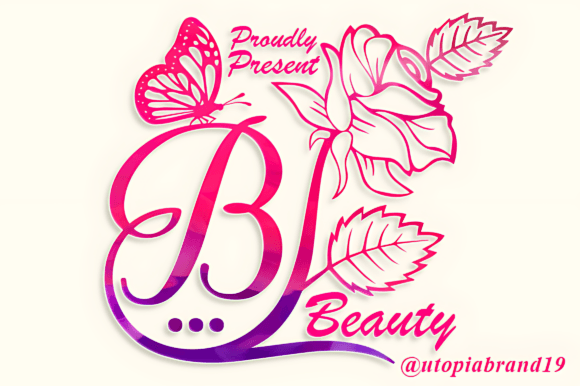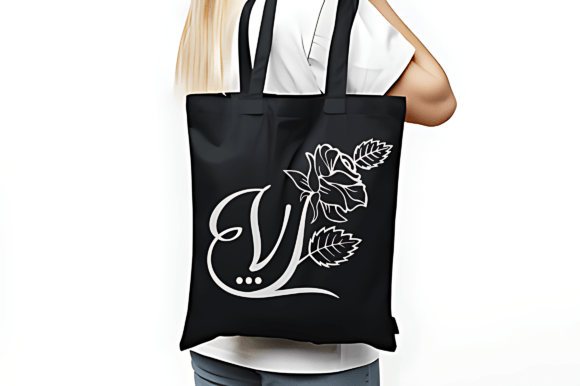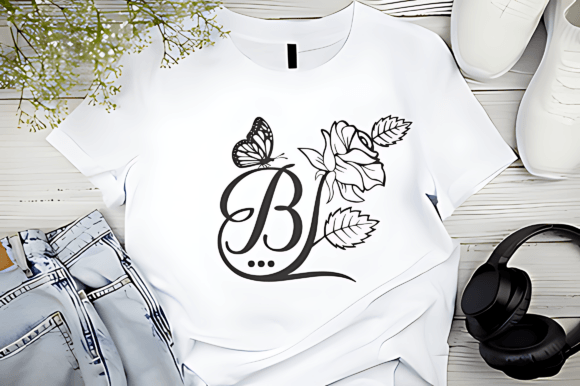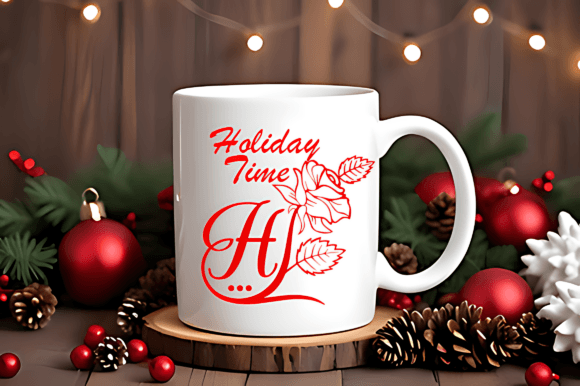
Beauty Flower Monogram Font
About the Beauty Flower Monogram Font
Unleash your creativity with Beauty Flower Monogram Font, a versatile font perfect for a wide range of applications. Beauty Flower Monogram is an elegant decorative font, featuring lovely ornaments. Fall in love with its authentic feel and use it to create gorgeous wedding invitations, beautiful stationary art, eye-catching social media posts, and cute greeting cards.
Beauty Flower Monogram Font Usage Examples